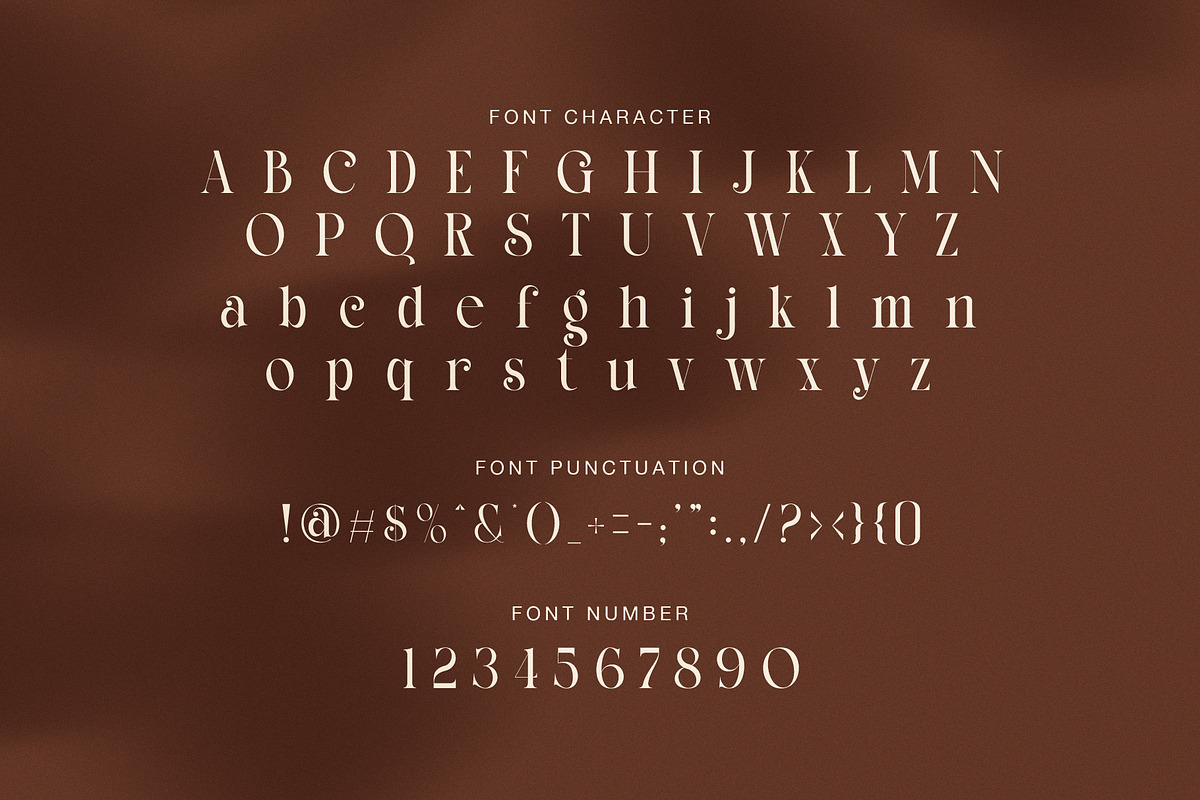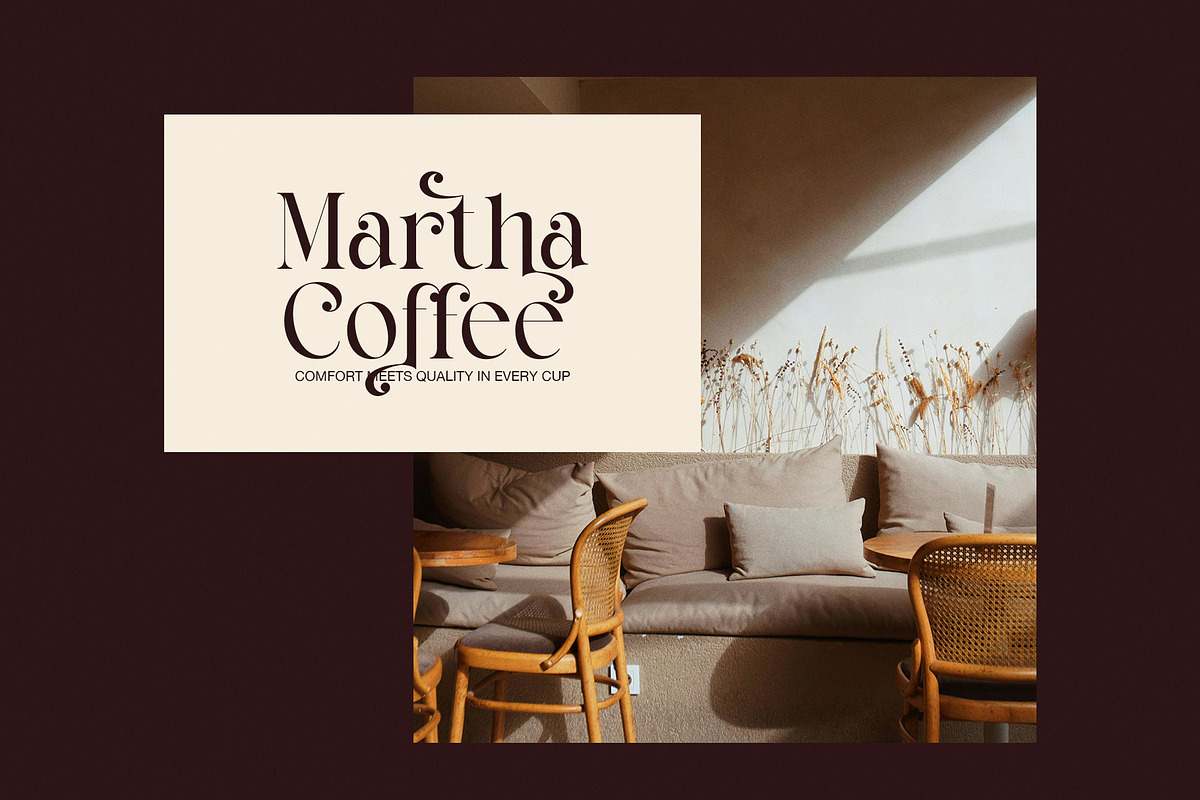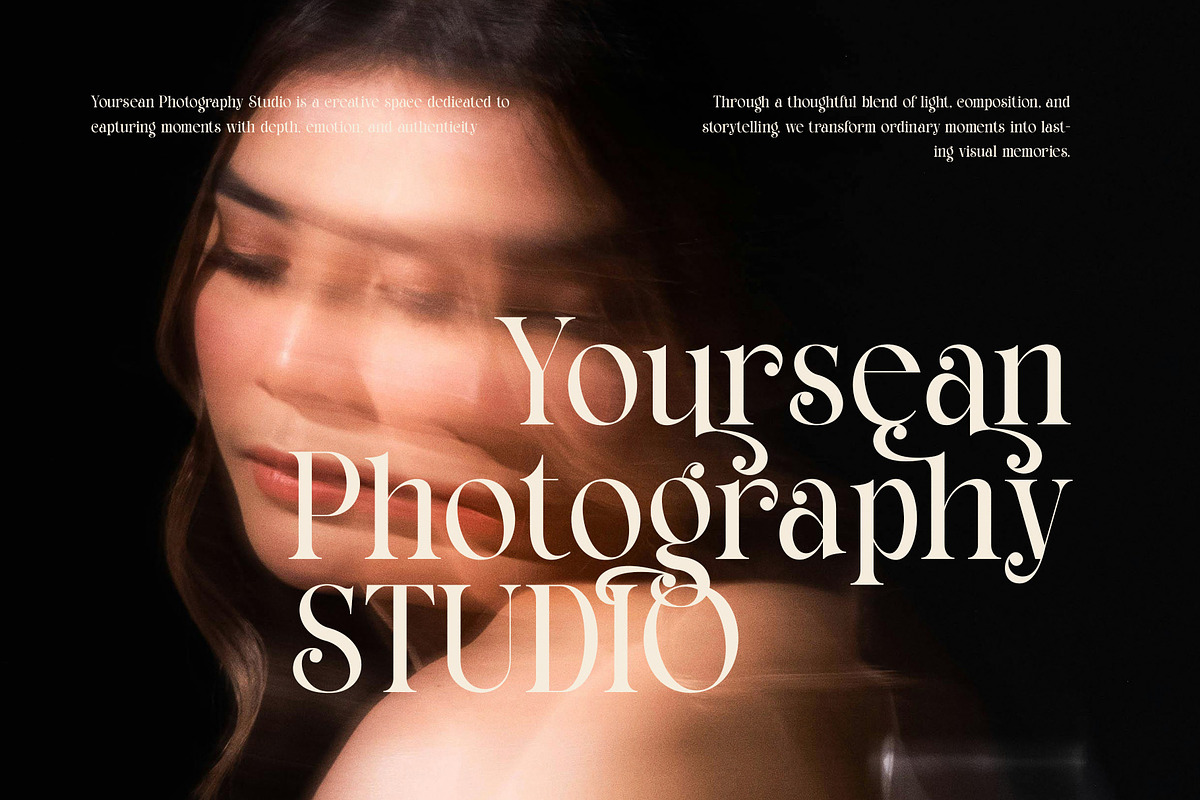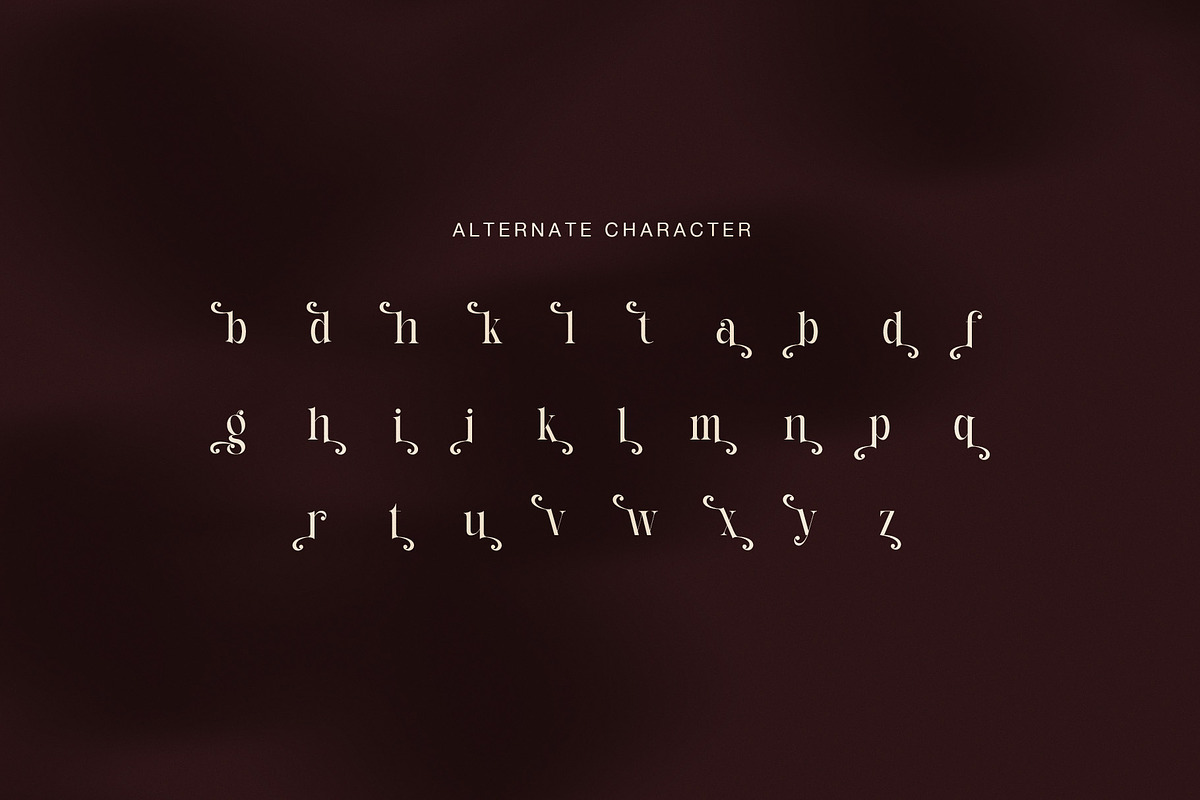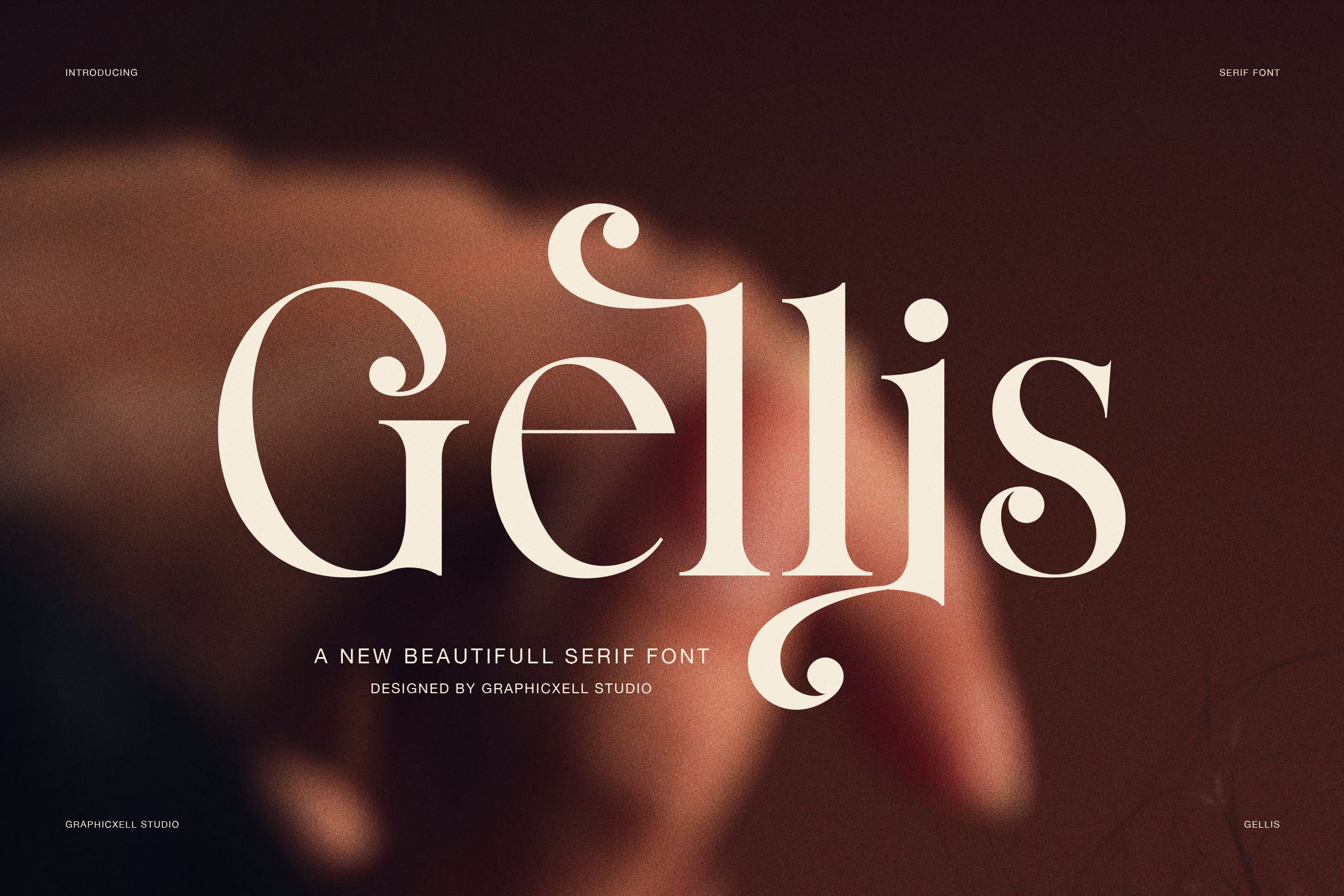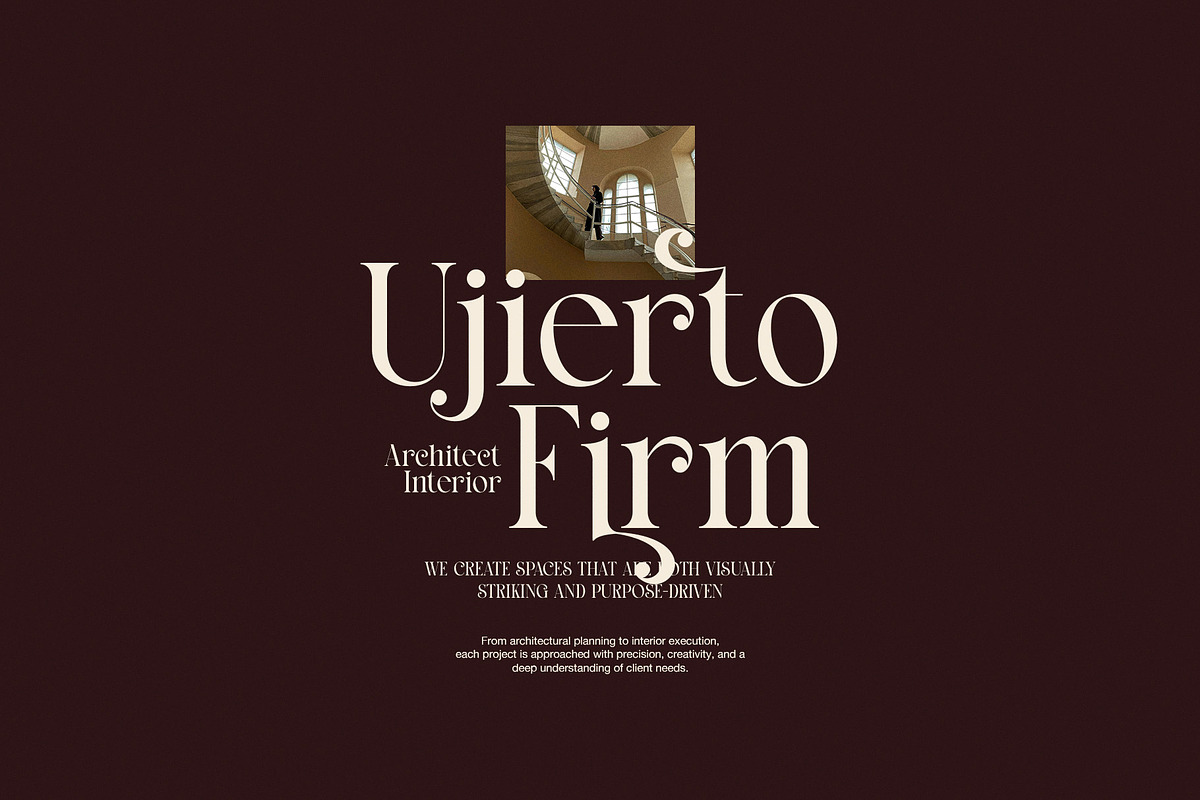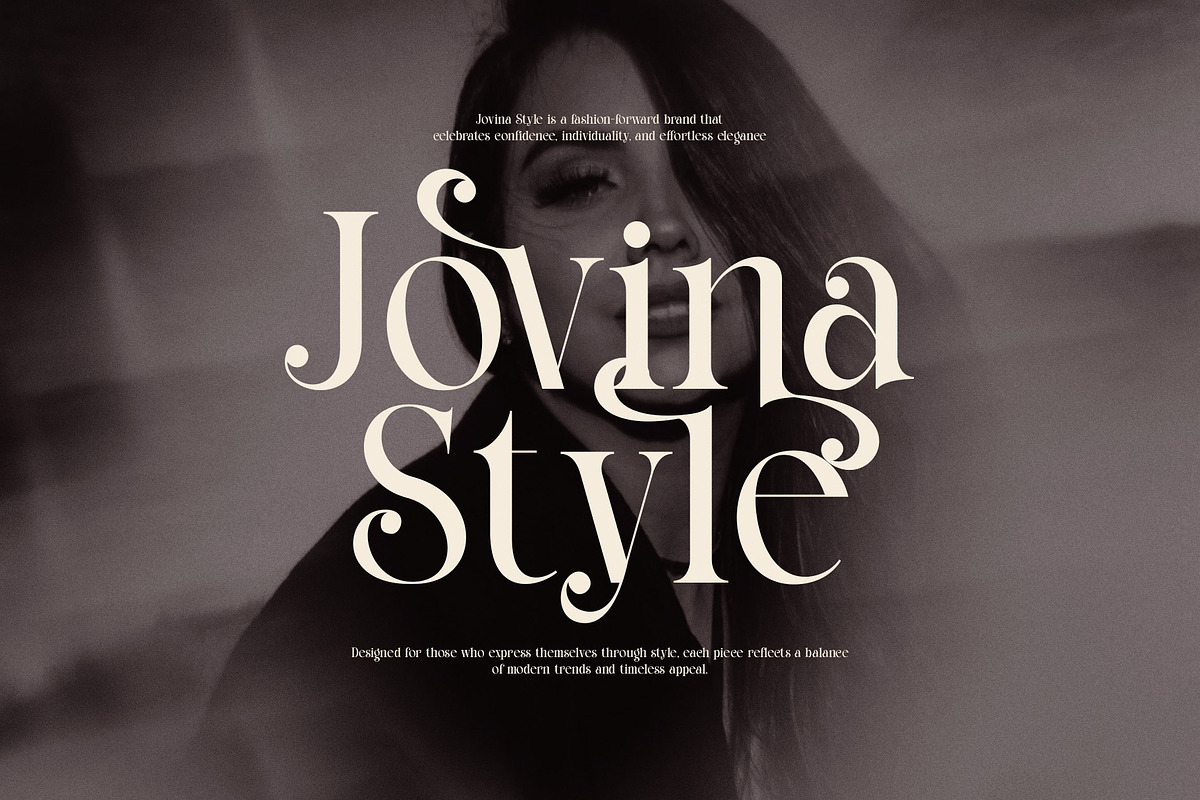
Gellis Elegant Serif Display Font
Gellis is an elegant serif display font designed to express refinement, confidence, and timeless beauty. Inspired by classic editorial typography and modern luxury branding, this font blends soft curves with strong serif structures. As a result, Gellis delivers a sophisticated presence while remaining visually balanced and contemporary.
This serif font features smooth stroke contrast, graceful terminals, and carefully shaped letterforms. Moreover, the flowing details create a natural rhythm that enhances headlines and brand marks. Because Gellis includes expressive alternates, designers can shape typography that feels distinctive and personal in every layout.
Gellis works especially well for premium branding and editorial design. Designers often choose it for architecture studios, interior firms, fashion portfolios, and lifestyle photography branding. In addition, the font performs beautifully for beauty brands, cafés, hotels, and creative agencies. Its elegant character supports both minimal compositions and richly layered visuals.
Elegant serif display style with refined contrast
Expressive alternate characters
Balanced uppercase and lowercase forms
Clean punctuation and stylish numerals
Strong readability for large-scale typography
Furthermore, Gellis offers excellent flexibility across creative projects. The uppercase letters project authority and polish, while the lowercase characters add softness and warmth. Therefore, designers can build strong hierarchy without sacrificing harmony. At display sizes, the font commands attention, yet it always maintains clarity and elegance.
Gellis helps designers communicate mood and identity through typography. Each letter carries deliberate spacing and thoughtful detail, which gives words a calm yet confident presence. As a result, the font strengthens branding systems, editorial layouts, and visual storytelling.
In conclusion, Gellis is more than a decorative serif. It is a refined design tool created for designers who value elegance, balance, and timeless appeal. If your project needs typography that feels luxurious, expressive, and professional, Gellis delivers style with confidence.